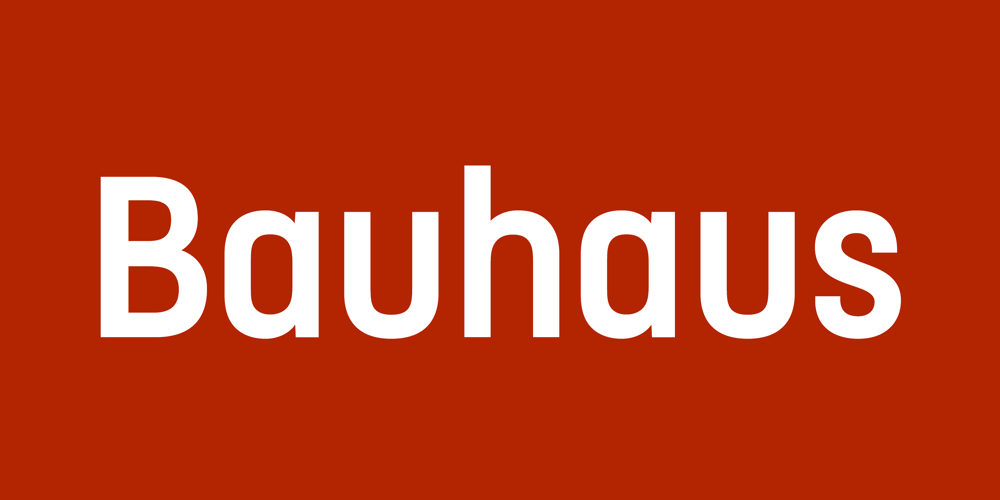
FS Dillon
FS Dillon font
FS Dillon Font Family was designed by Jason Smith and published by Fontsmith. FS Dillon contains 6 styles and family package options. BauhausGeometric, economical, functional… The good, wholesome, modernist values that once fired up the tutors and students of the Bauhaus became the inspiration for FS Dillon after an exploration of the work of the pre-war art and design powerhouse in the Fontsmith studio.The font combines simplicity and directness with a characteristic Fontsmith warmth. Letterforms are compact, with a generous x-height, and built for maximum clarity and impact.The Bauhaus sought beauty through function. FS Dillon achieves it.Made for TVThe weights of fonts for TV sometimes have to be adjusted so as not to “blow” on-screen. FS Dillon was originally drawn for the on-screen presentation branding of Film Four, whose primary colour was red. Black type on a red background looks heavier than white, so Dillon needed two weights that would allow white and black type to be used together, looking balanced and equal.Type design is an organic process. Years after developing FS Dillon, we revisited it, redrawing elements and adding italics to maintain consistency. OlympicYou don’t get a much higher confirmation of the functional fitness of a typeface than to have it selected to guide visitors around an Olympic complex. FS Dillon was selected as the font for signage at some of the key venues at the London 2012 Olympic Park, helping to get spectators, athletes and officials from all over the world to their seats and starting blocks on time.